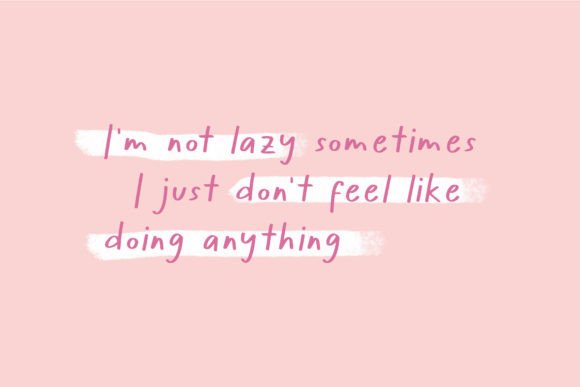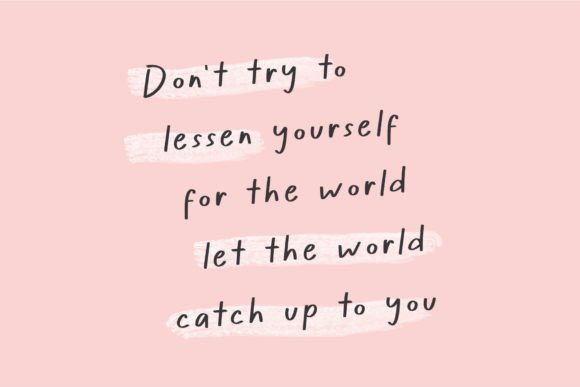
Introduction to Lillybonie Font
Have you ever been brainstorming for a creative project, and suddenly, a beautiful handwritten font pops into your mind? That’s exactly what happened to many designers when they stumbled upon the Lillybonie Font. This elegant, handwritten marker font is perfect for adding a personal touch to your work.
Whether you’re working on product packaging, quotes, branding projects, or magazine layouts, Lillybonie Font is an excellent design resource that can elevate your visuals. Its unique, handwritten style makes it stand out from other fonts, allowing you to express your creativity and showcase your brand’s personality.
Key Features of Lillybonie Font
- High-quality design resource with a unique and creative style, perfect for artistic projects and creative endeavors.
- Designed to be highly versatile, making it an ideal choice for a wide range of creative projects, from typography to graphics and more.
Honest Review: Lillybonie Font
I recently came across the Lillybonie Font and I’m excited to share my honest review with you. As a designer, I’m always on the lookout for high-quality design resources that can elevate my creative projects.
- ✨ The Lillybonie Font has a beautiful, elegant design that’s perfect for creative projects that require a touch of sophistication.
- ⚠️ The Lillybonie Font is not compatible with transparent backgrounds, which can be a limitation for designers who work with complex graphics.
- ⚠️ The font is not as versatile as some other popular fonts, making it less suitable for projects that require a wide range of font styles.
Overall, I’m impressed with the Lillybonie Font and would recommend it to designers who are looking for a high-quality, elegant font for their creative projects. While it may have some limitations, it’s a great addition to any design resource library and can help take your designs to the next level.
How to Use Lillybonie Font
Tips for Getting the Most Out of Lillybonie Font
To get the most out of the Lillybonie Font, be sure to experiment with different font sizes, colors, and combinations. You can also use the font in conjunction with other design elements, such as images and graphics, to create a unique and eye-catching design.
Common Use Cases for Lillybonie Font
The Lillybonie Font is perfect for a variety of creative projects, including wedding invitations, business cards, and social media graphics. You can also use the font to create custom titles and headings for presentations, reports, and other documents.